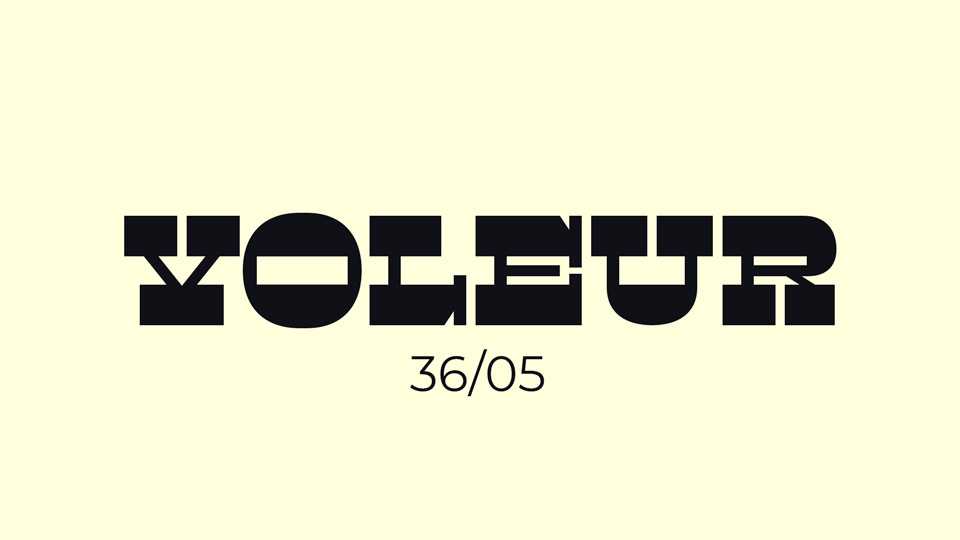
Download Voleur font a reversed contrast display typeface. The idea with this one was focused on creating a wide band that runs across the top and bottom of every letter.
Designer: Justin Penner